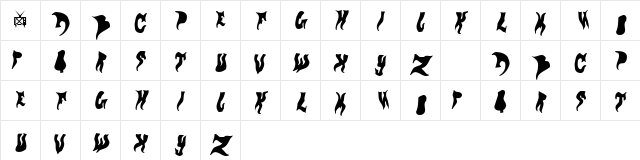
_evol Regular Free Font
_evol Regular
Design Context for _evol
_evol is a composed and adaptable typeface that performs quietly and consistently across a wide range of design contexts.
Pro Tip: Use _evol in both headline and body roles to test its range before committing to a single application.